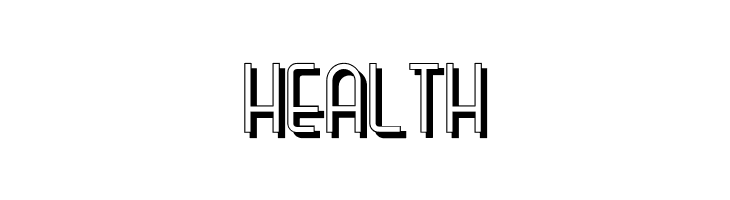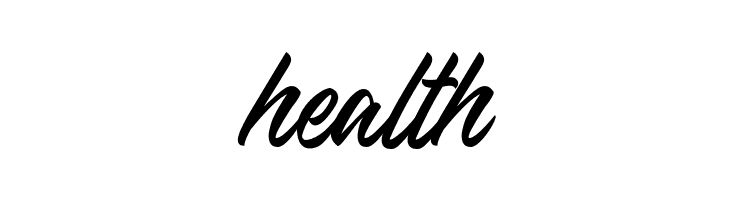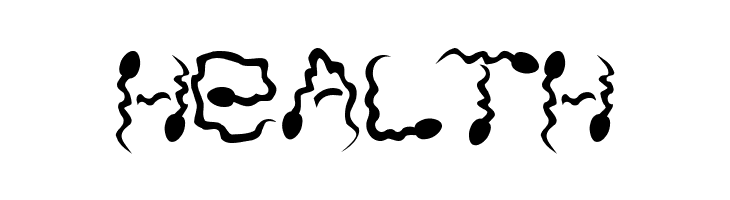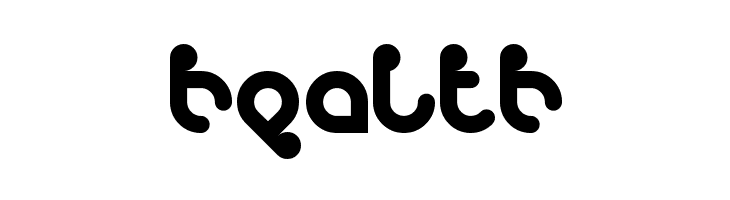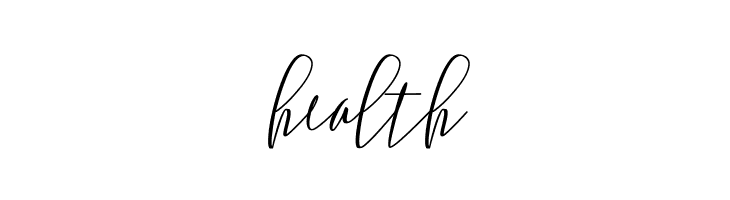
A bold, rounded font with a playful geometric style.
A playful, rounded font with bold, geometric strokes and smooth curves.
A playful, bold, and whimsical handwritten font with rounded characters.
Casual handwritten font with smooth curves.
A graceful and elegant script font with fluid, sweeping curves.
An elegant script font with flowing, interconnected letters and high contrast strokes.
A modern, geometric font with a clean and condensed design.
A bold, decorative font with a shadow effect for a three-dimensional look.
A dynamic and elegant script font with high contrast and flowing letterforms.